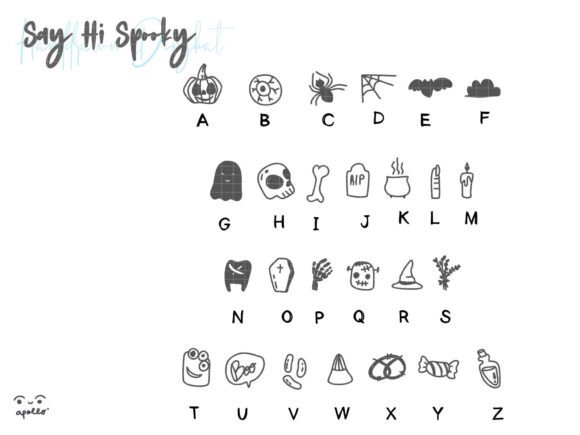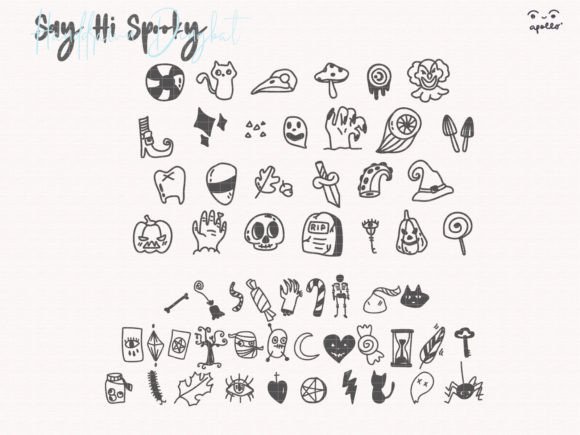
Say Hi Spooky Font
Introducing “Say Hi Spooky,” a playful hand-drawn doodle dingbats font that captures the spirit of Halloween. With its fun and spooky party elements, this font is the perfect choice for a wide range of creative projects, including invitation embellishments, wall art, beverage logos, seamless patterns, and more!
Say Hi Spooky brings a touch of whimsy and excitement to your designs. Its hand-drawn doodles feature various Halloween-themed elements, such as ghosts, bats, witches, pumpkins, candies, and more. These charming and quirky glyphs can be used to add decorative accents or embellishments to your designs, instantly infusing them with a spooky and festive vibe.
When it comes to invitations, Say Hi Spooky is an ideal choice for Halloween parties and events. Whether you’re designing invitations for costume parties, haunted houses, or trick-or-treating gatherings, you can use the doodle glyphs to create unique and eye-catching embellishments. Scatter the spooky elements around the text or use them to frame important details, adding a playful and personalized touch to your invitations.
If you’re working on wall art or home decor projects, Say Hi Spooky can bring a festive and whimsical feel to your designs. Create delightful Halloween-themed prints by combining the doodle glyphs with spooky quotes or seasonal phrases. Use them to design custom artwork for your living room, party decorations, or any space that could use a touch of Halloween spirit.
For beverage logos, Say Hi Spooky can add a fun and distinctive element to your branding. Incorporate the doodle elements into your logo design to give it a spooky and playful feel, perfect for Halloween-themed drinks, parties, or seasonal promotions. The hand-drawn style of the glyphs will make your logo stand out and create a memorable impression.
Additionally, Say Hi Spooky is perfect for creating seamless patterns. Use the doodle elements to design repeatable patterns that capture the spirit of Halloween. These patterns can be applied to various products, such as stationery, fabric, packaging, and more, adding a charming and cohesive Halloween theme to your creations.
With Say Hi Spooky, you can infuse your designs with the fun and spooky atmosphere of Halloween. Let this hand-drawn doodle dingbats font be your go-to choice for invitation embellishments, wall art, beverage logos, seamless patterns, and more. Add a touch of whimsy to your designs and celebrate the spirit of Halloween with Say Hi Spooky.